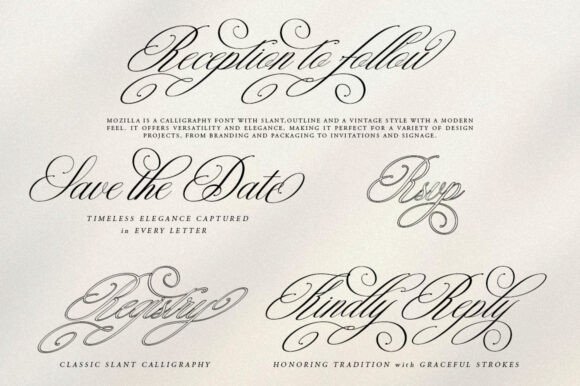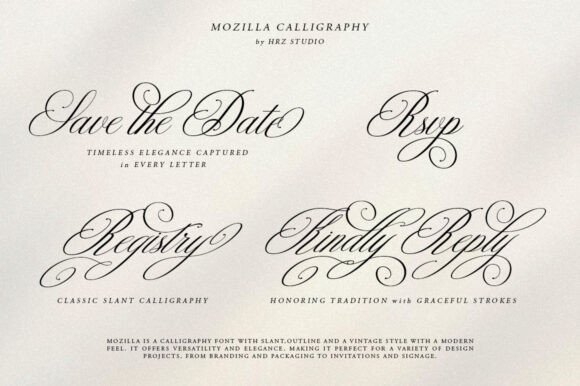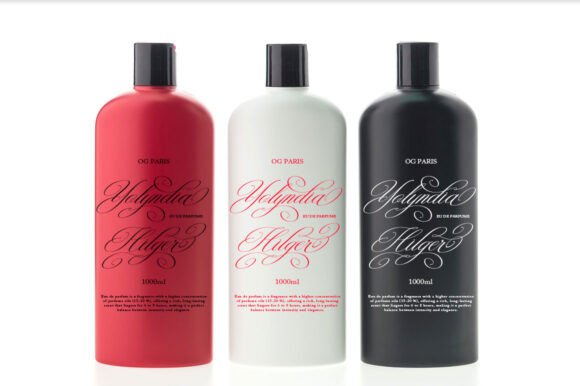
Introduction to Mozilla Font
Have you ever stumbled upon a font that makes you feel like you’re holding a masterpiece in your hands? For designers, finding the perfect font can be a game-changer. It’s the difference between a project that’s just okay and one that’s truly exceptional. And that’s exactly what the Mozilla Font offers – a touch of elegance and sophistication that can elevate any creative project.
With its beautiful changing characters, slant, and outline, Mozilla Script is a calligraphy font that exudes style and refinement. Its classic, decorative copper script design gives it a modern touch, making it a valuable resource for designers looking to add a high-quality, free download to their toolkit.
Whether you’re working on a design project that requires a touch of glamour or just need a font that’s easy to read and looks great, Mozilla Font is an excellent choice. Its transparent background and many style alternatives make it a versatile design resource that’s perfect for a variety of applications, from invitations to packaging labels.
Key Features of Mozilla Font
Honest Review: Mozilla Font
I recently stumbled upon the Mozilla Font, a free design resource that has been making waves in the creative project community. As a designer, I was excited to dive in and see what it has to offer.
- High-quality typography: The Mozilla Font boasts a clean and modern aesthetic, making it perfect for a wide range of creative projects.
- Transparent background: This feature allows for seamless integration with any background, giving designers the flexibility they need to bring their ideas to life.
- Limited font options: While the Mozilla Font is well-designed, the selection of fonts is relatively limited compared to other design resources.
- No bold or italic options: Unfortunately, the Mozilla Font doesn’t offer bold or italic versions of its fonts, which can be a drawback for designers who need to emphasize certain text.
Overall, I’m impressed with the Mozilla Font’s potential, but it’s not without its limitations. While it’s a great starting point for designers, it’s essential to consider other design resources that offer more comprehensive font options.
Mozilla Font
The Mozilla Font is a high-quality, free download design resource perfect for creative projects. It offers a transparent background and can be easily customized to fit your needs.
Tips for Getting the Most Out of Mozilla Font
For optimal results, use the Mozilla Font in conjunction with other high-quality design resources.
Experiment with different font sizes, colors, and styles to create a unique look.
The Mozilla Font is perfect for:
Creating visually appealing logos and branding materials.
Designing engaging social media graphics and ads.
Developing high-quality presentations and reports.